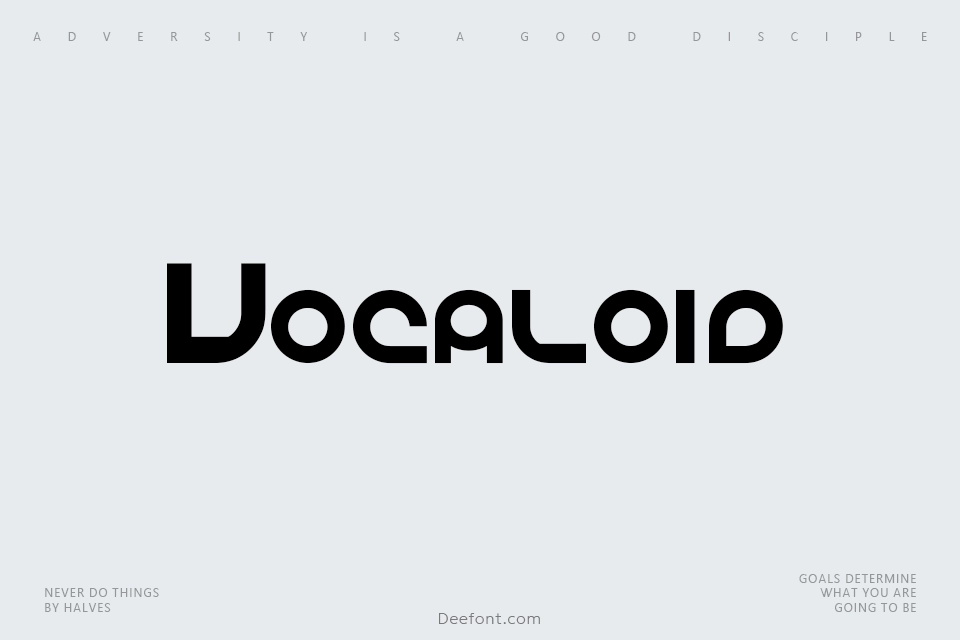
Vocaloid Font
The Vocaloid font captures the digital, futuristic essence associated with vocal synthesizers and virtual pop culture. Designed with a techno and sci-fi aesthetic, this display typeface features clean lines and geometric elements, making it ideal for creative projects needing a modern, high-impact look. Perfect for music, event posters, and digital content, its eye-catching style works for branding or multimedia use—however, it is free for personal use only.